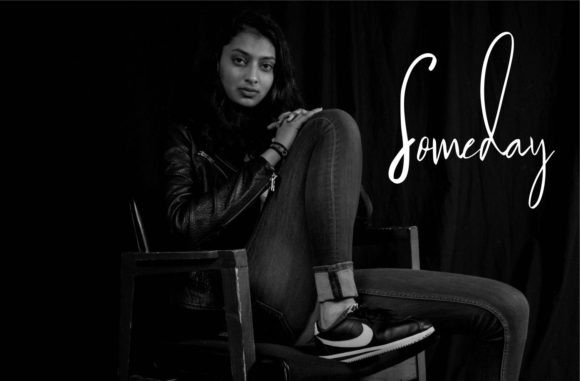
Hellomate Script Font
Hellomate is a cute and casual handwritten font with an incredibly friendly feel. It features gorgeous swashes and ligatures that make this script incredibly versatile. Whether you’re looking for fonts for Instagram or calligraphy scripts for your DIY projects, Madalyn will turn any creative idea into a true piece of art!